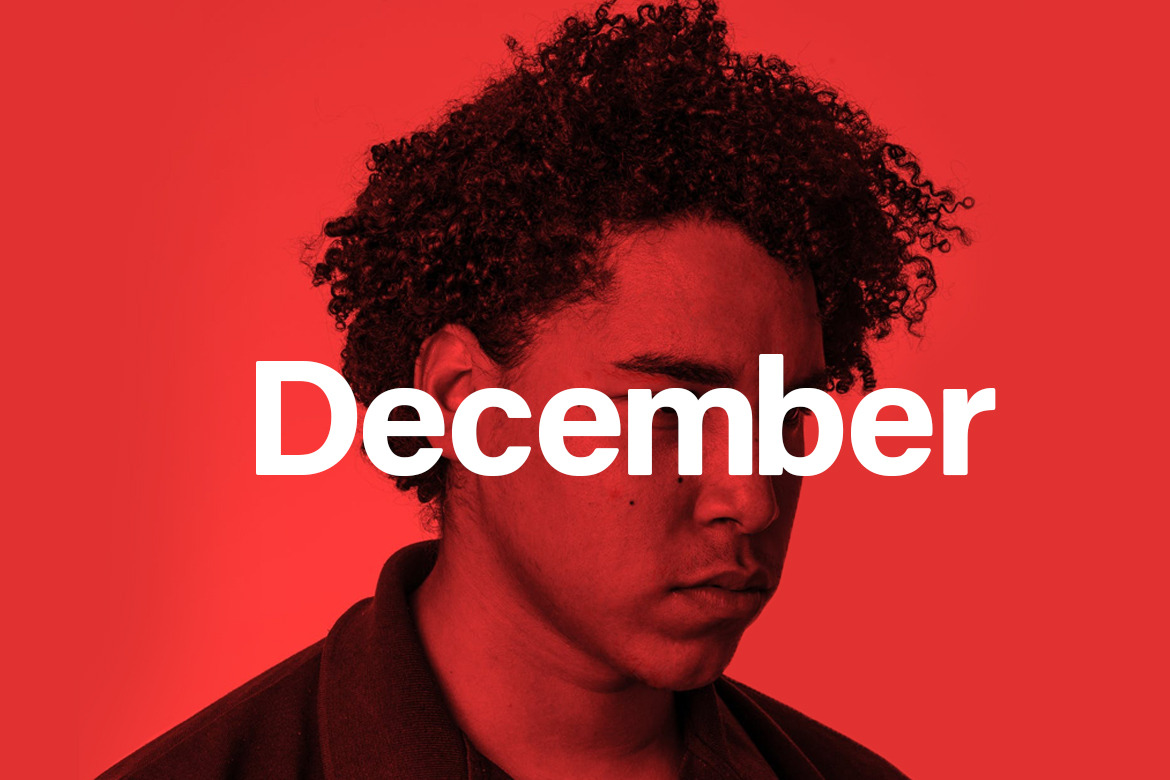
December - Modern Typeface
December Sans Typeface
December is a medium-contrast typeface, The Lowercase letters are highly Unique and great choice for a branding project, display poster, Webdesigns, packaging designs, and a wide range of graphic design projects. December Sans can keep the minimalism at its level best and is a perfect choice for Creative and Classic Typography Designs.